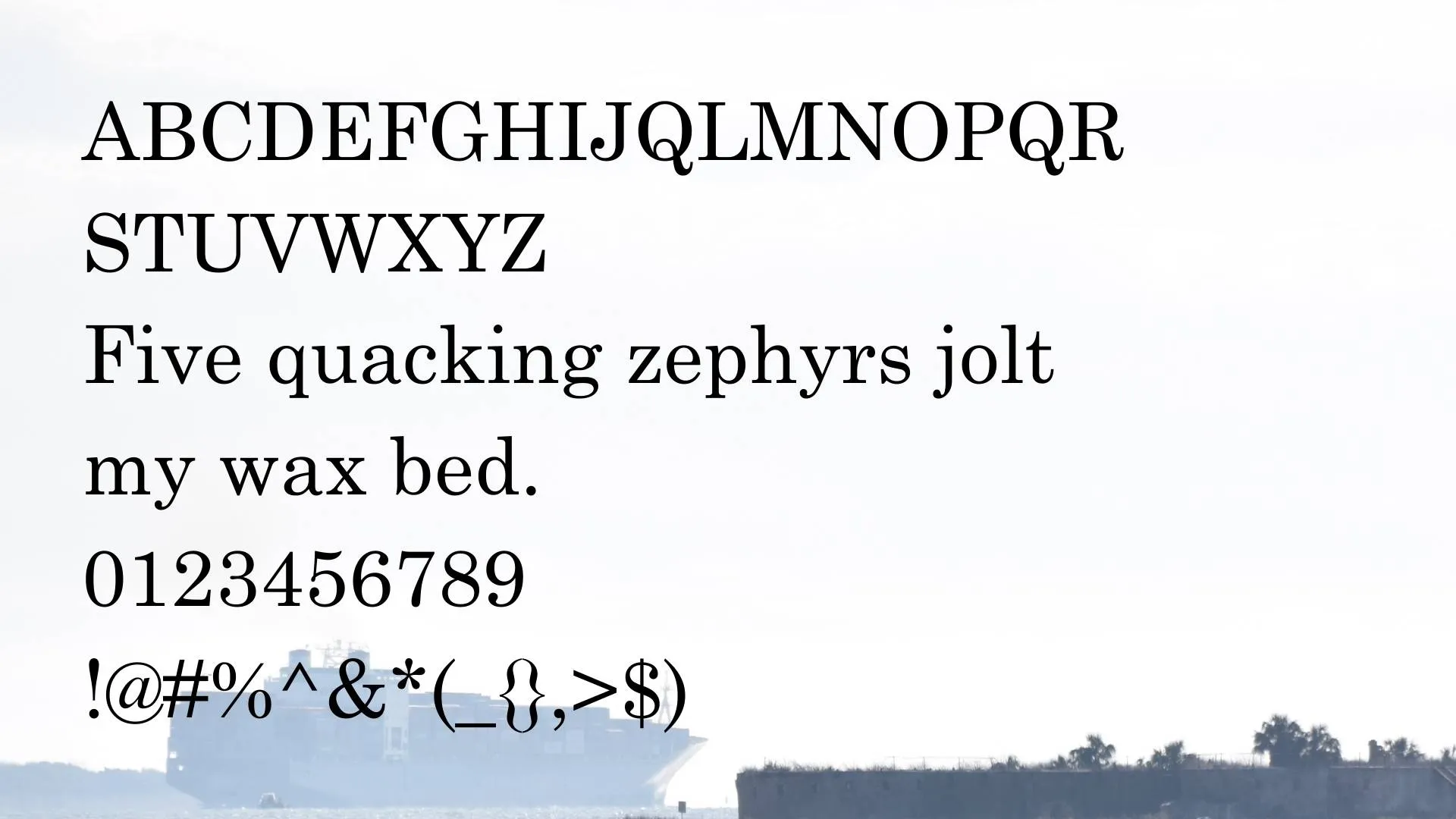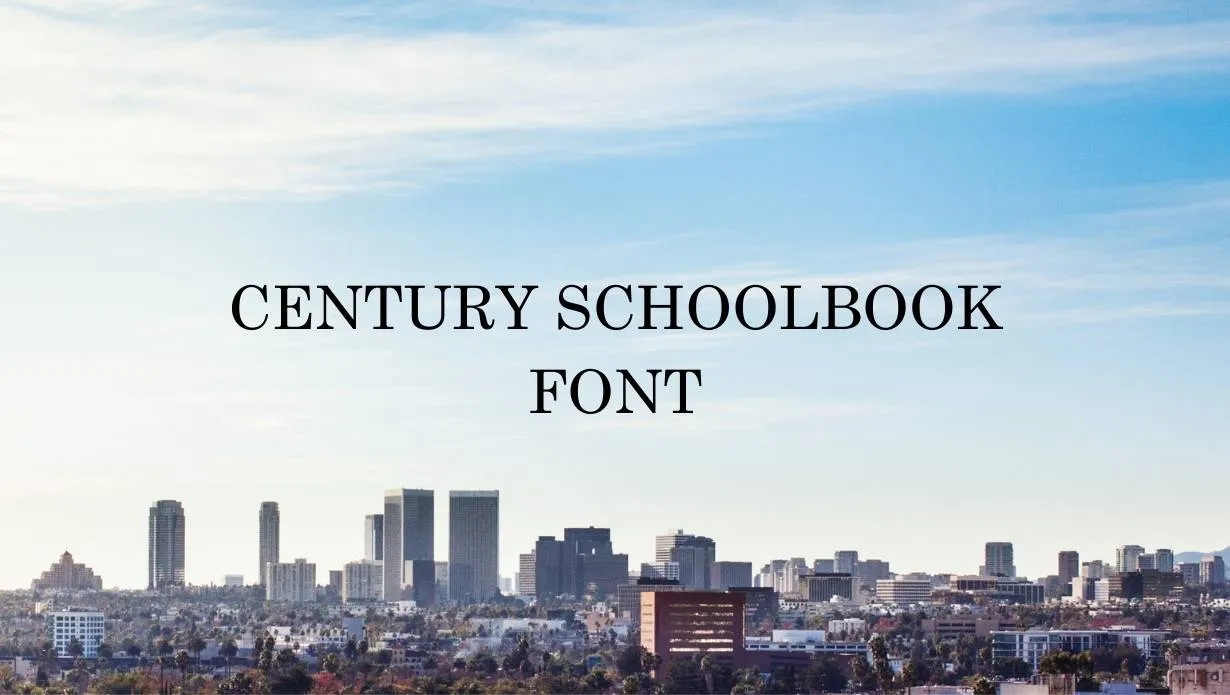
About Century Schoolbook Font
Century Schoolbook Font, a serif typeface, came from the mind of American designer Morris Fuller in 1918. Ginn and Company asked for a font that was easy to read. An American type foundry later brought it into the world.